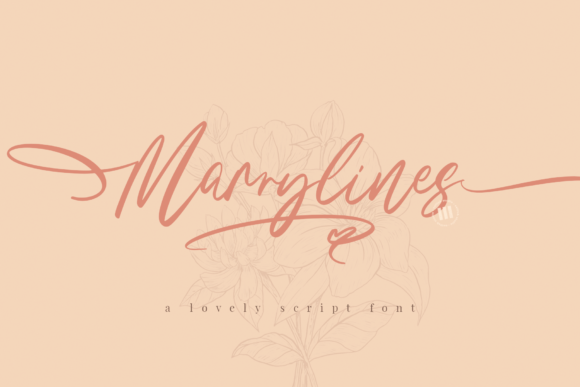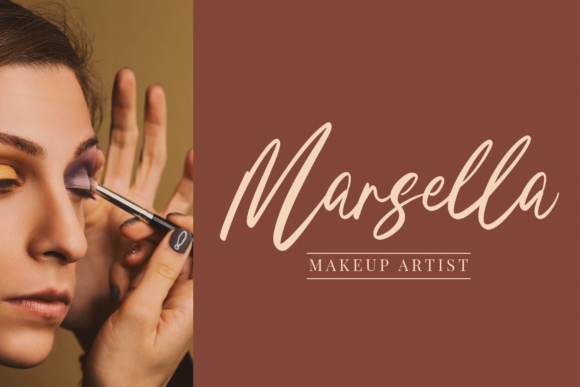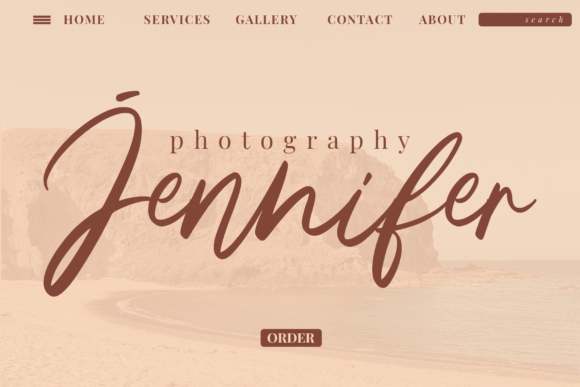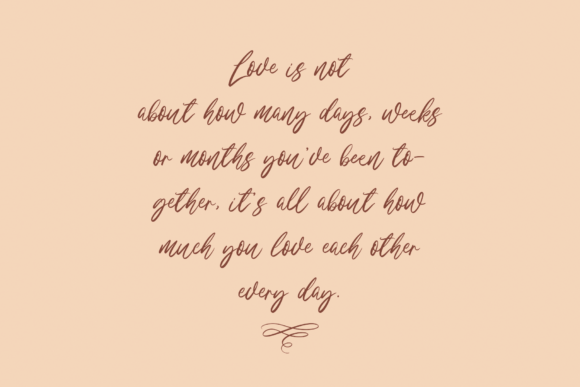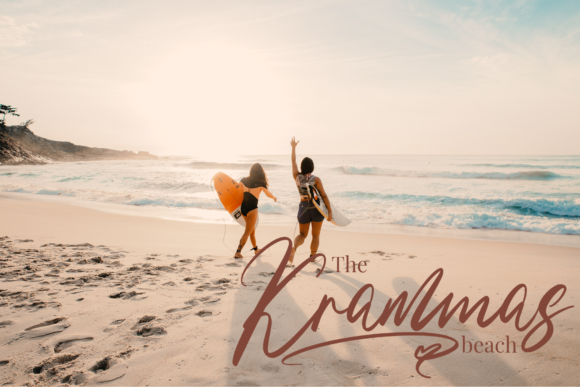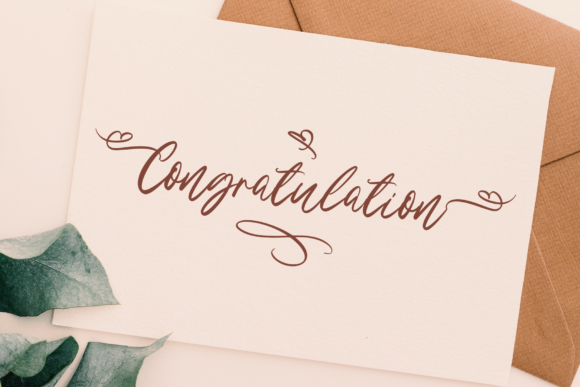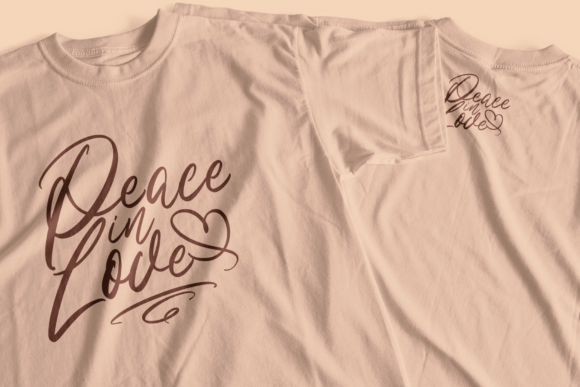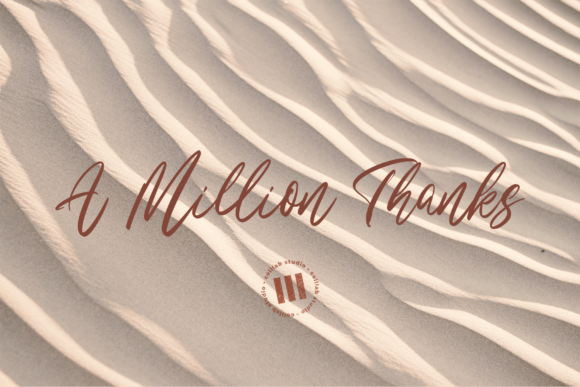
About Marrylines Font
Marrylines feel incredibly elegant and flowing. It looks stunning on wedding invitations, thank you cards, quotes, greeting cards, logos, business cards, and every other design which needs a handwritten touch. It features a varying baseline, smooth lines, gorgeous glyphs, and stunning alternates.